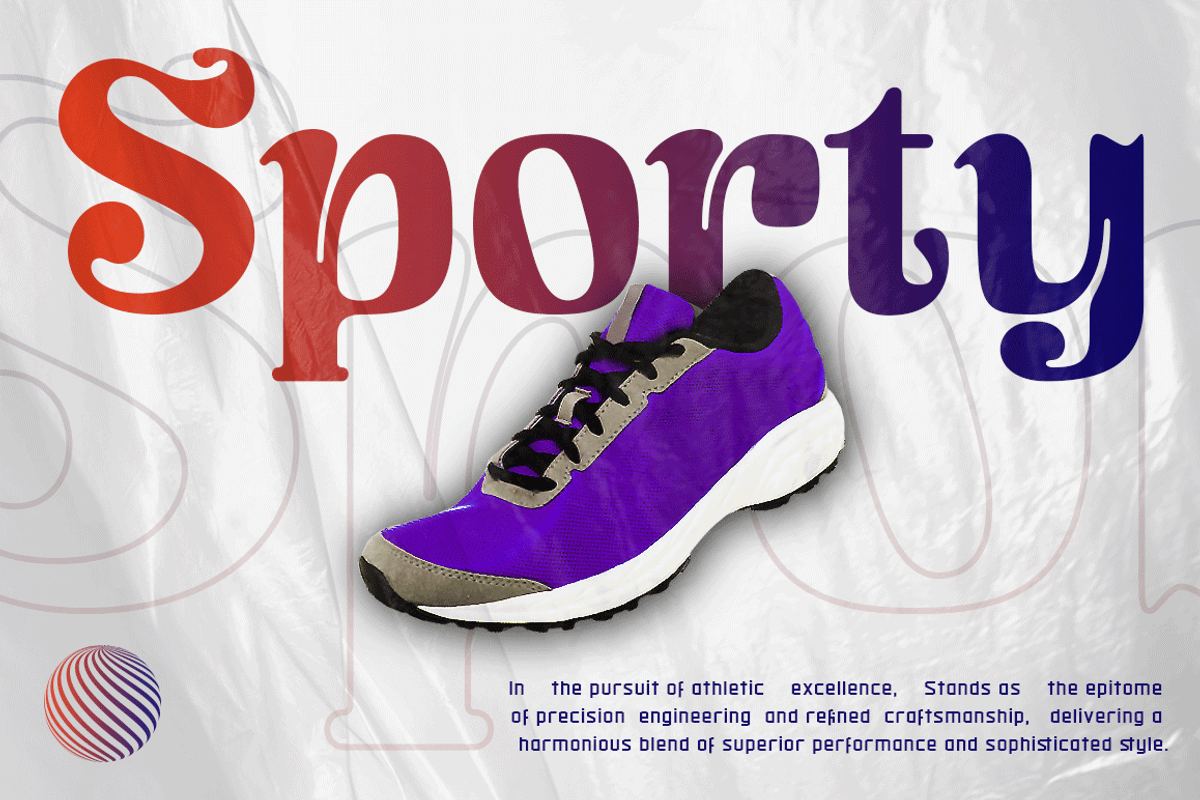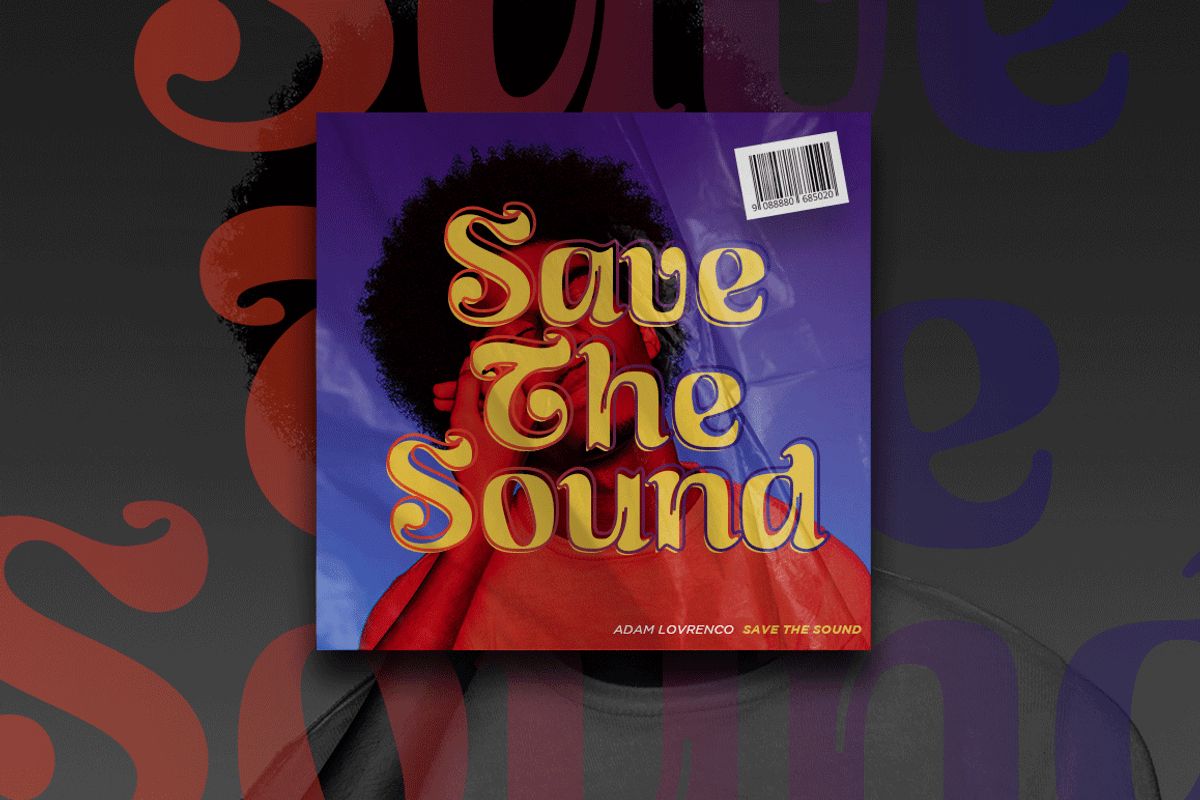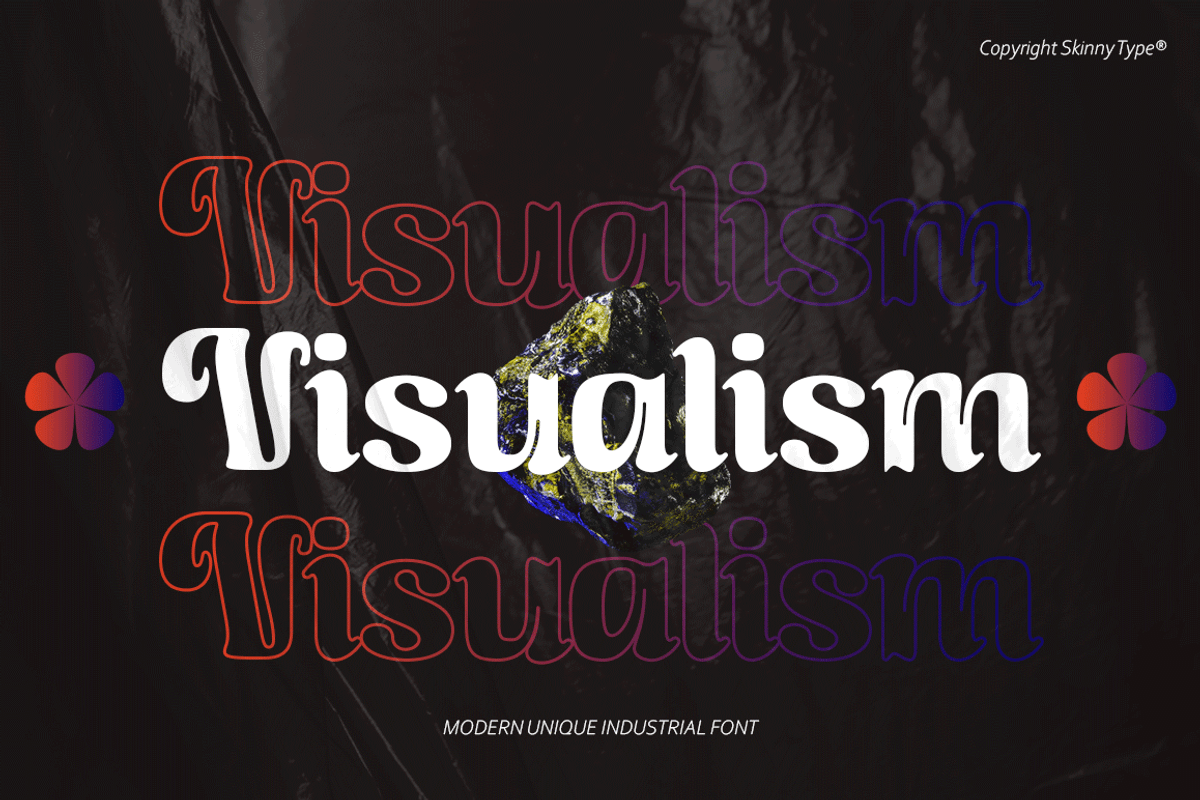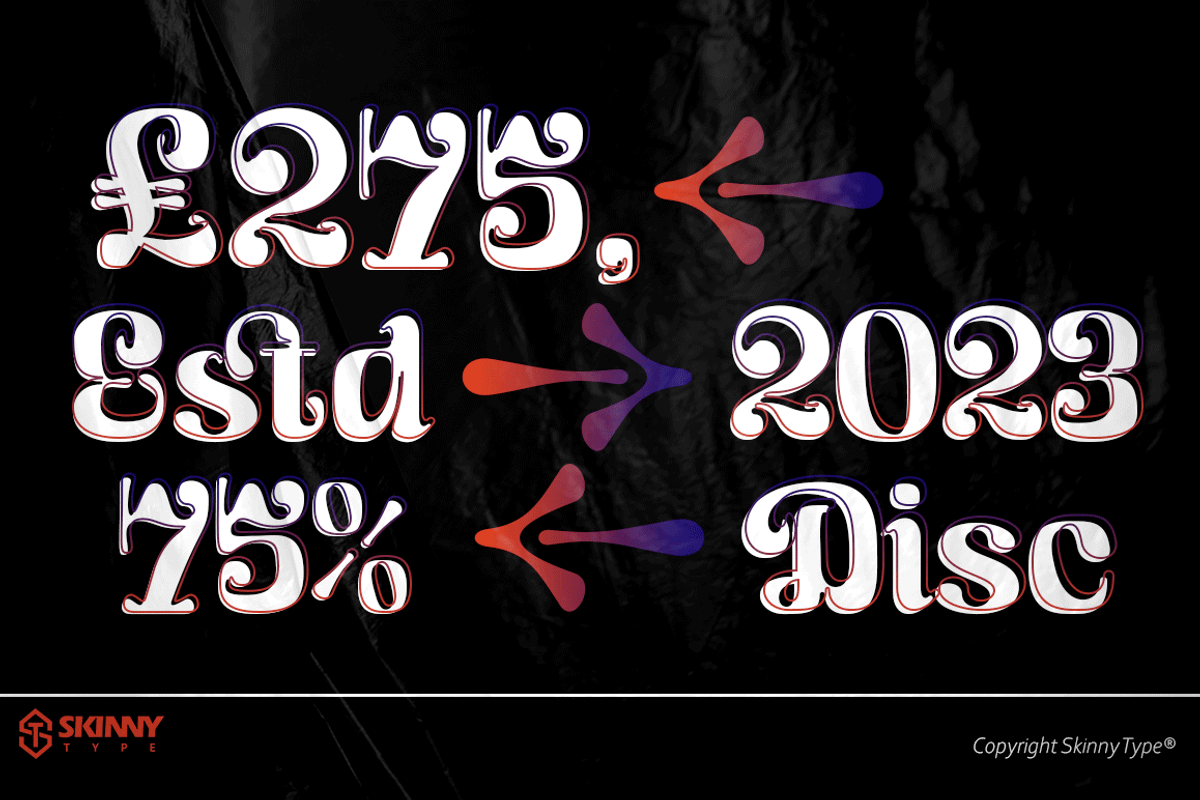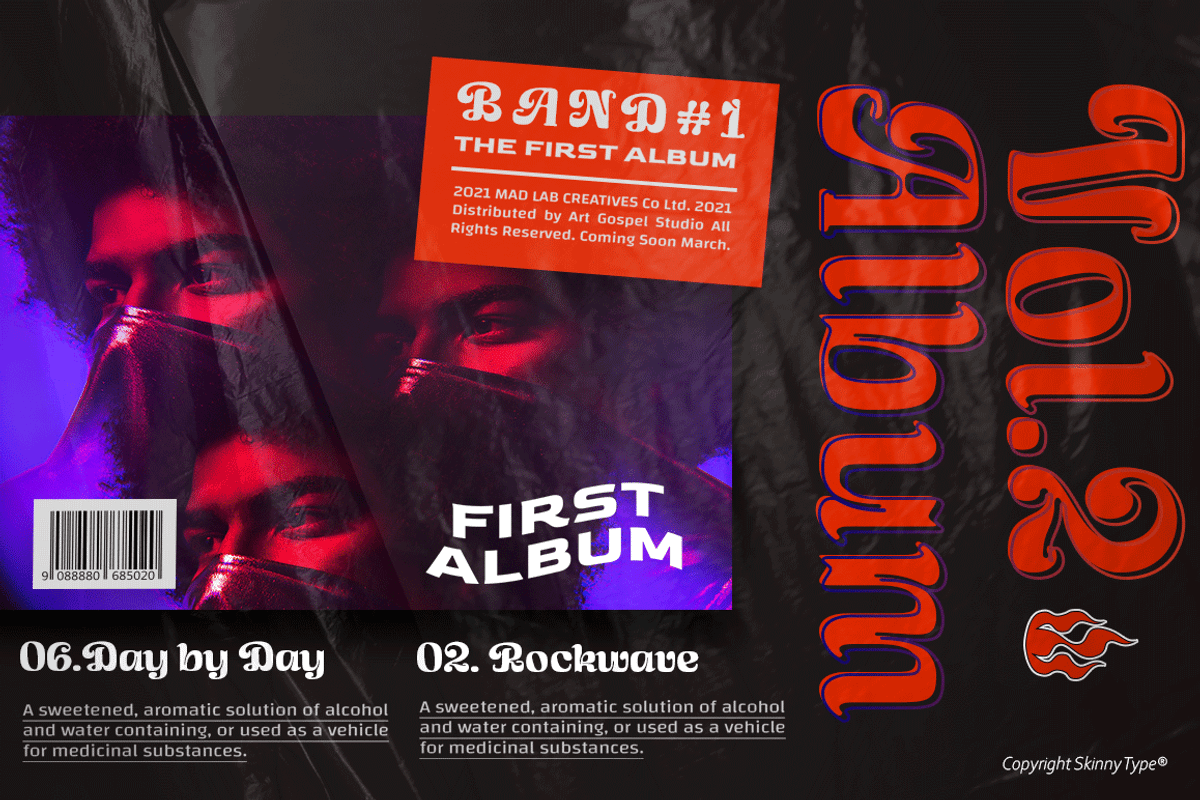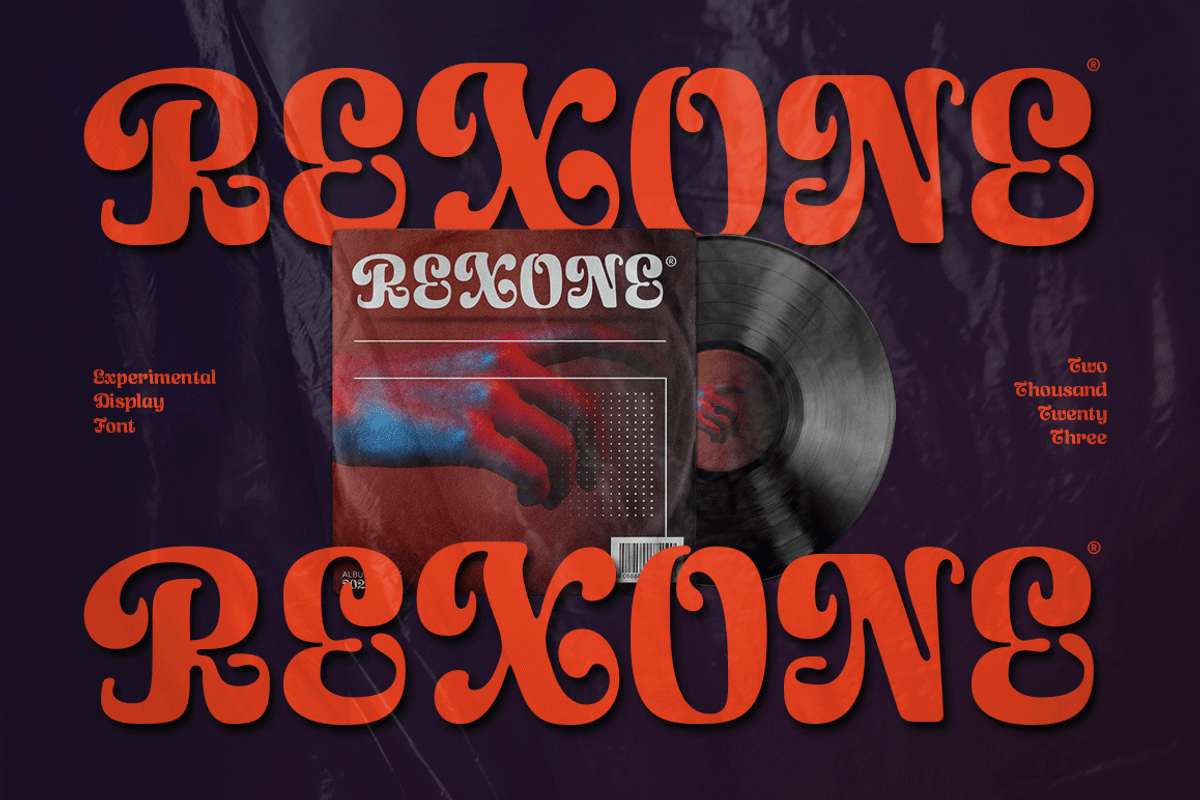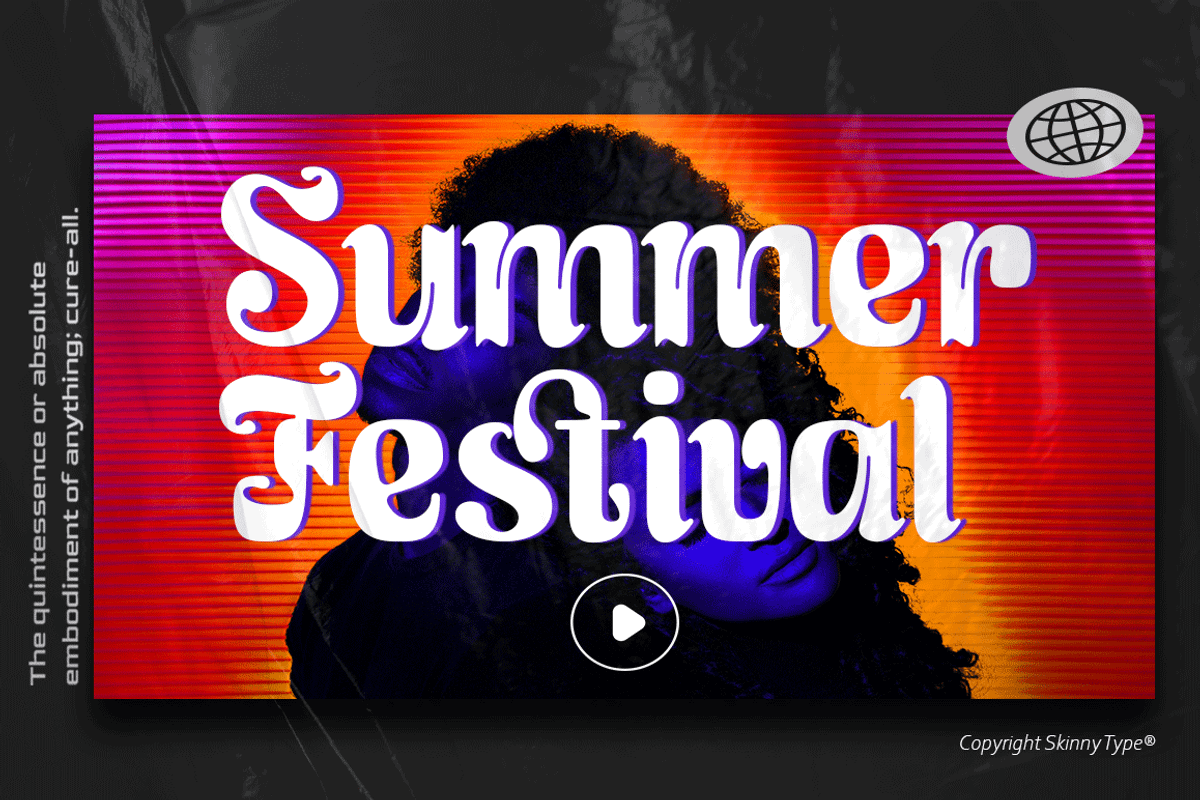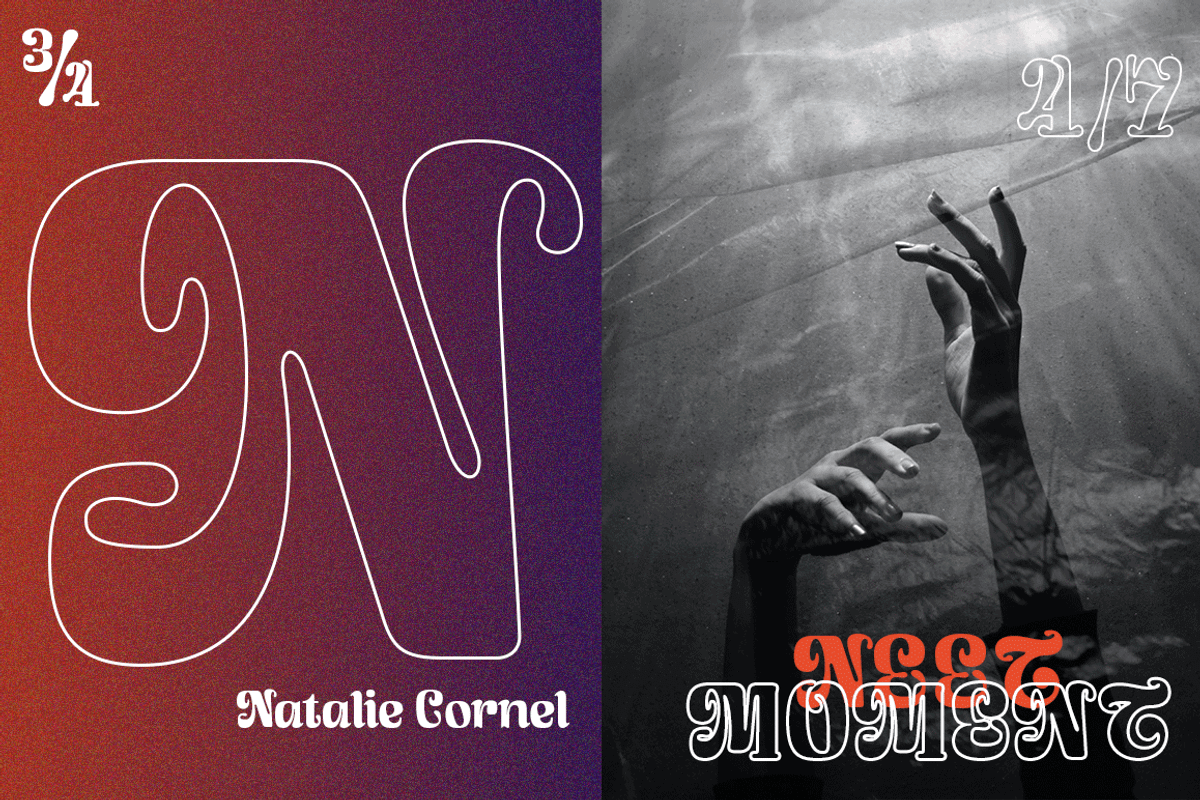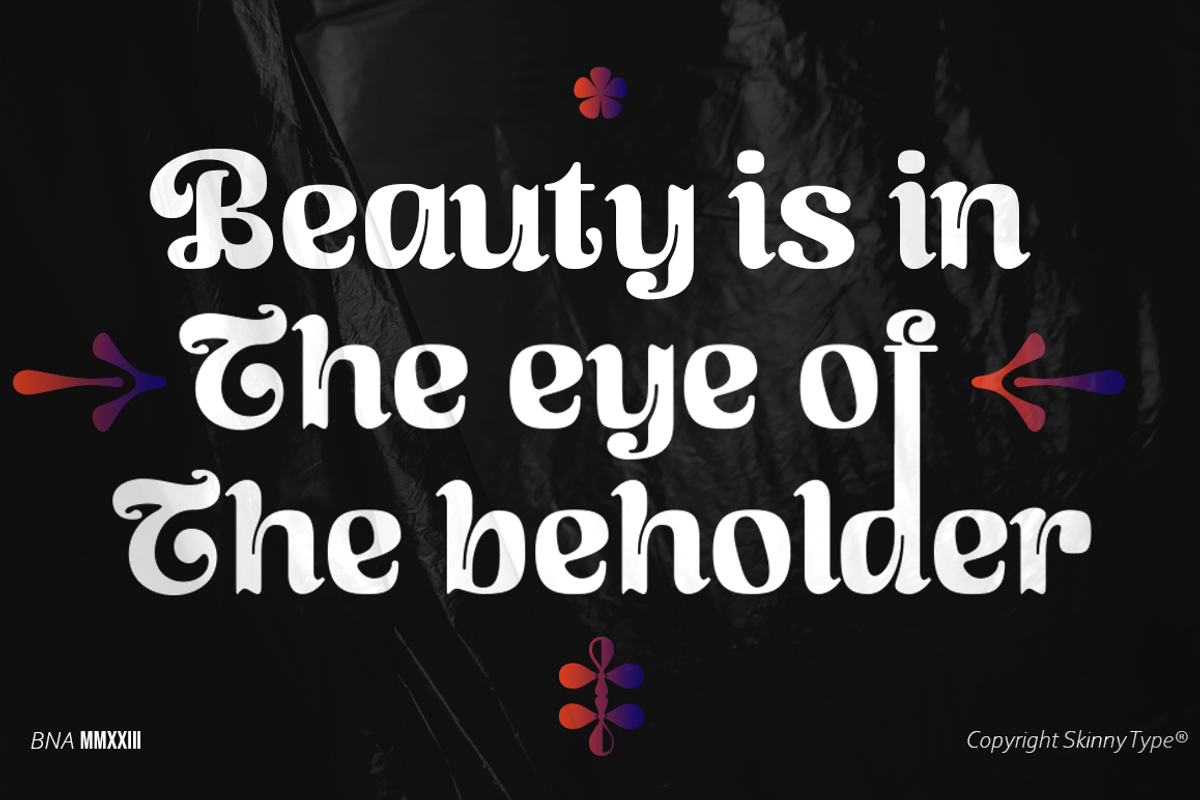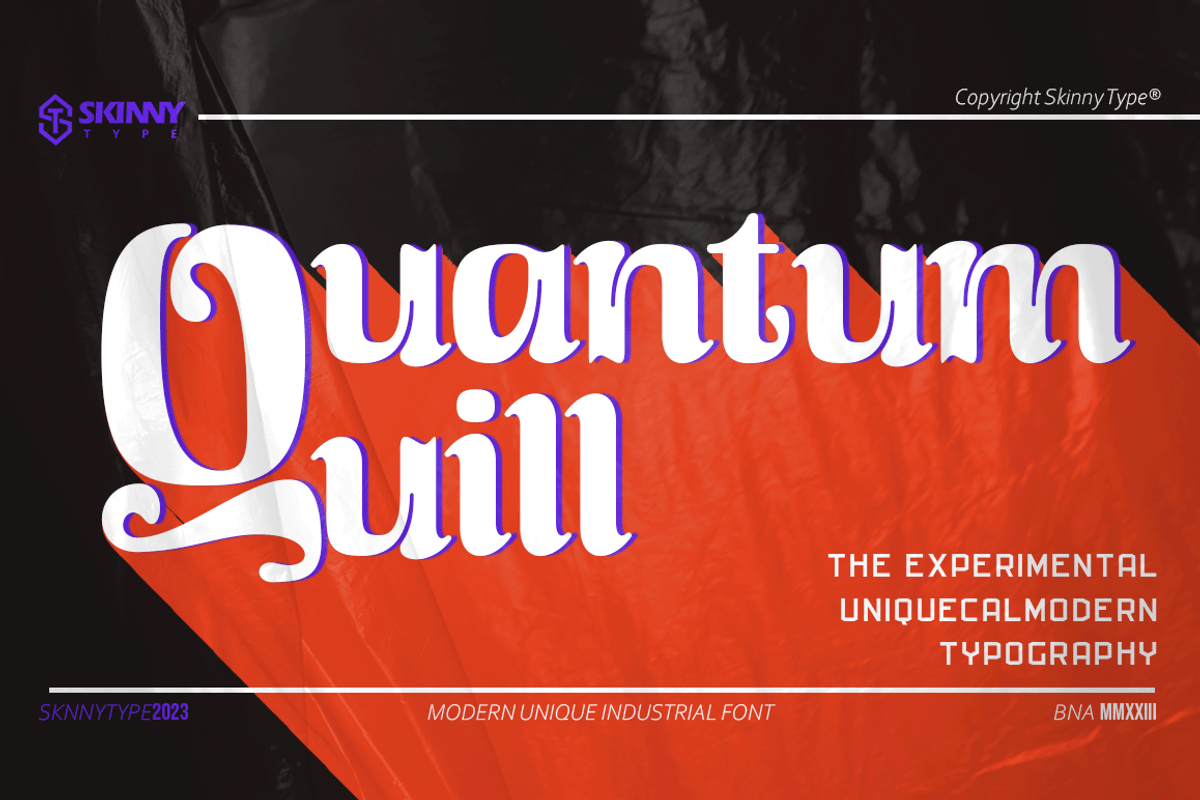
Quantum Quill-Experimental Typeface
Introduction to Quantum Quill - A Experimental Unique Display Typeface
Quantum Quill font, classic clean and thoughtful, combined in one font, use this font for any beauty spot for logos, titles, cover books, magazines and more.